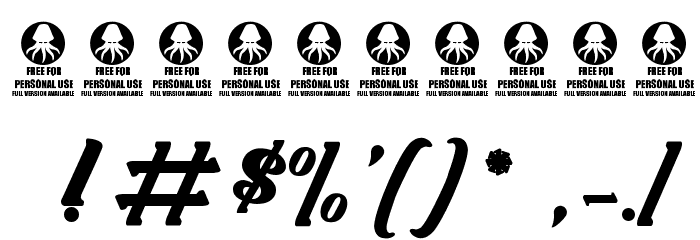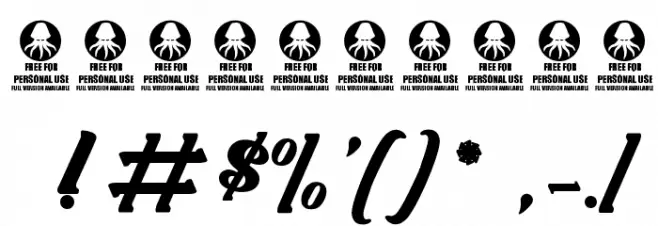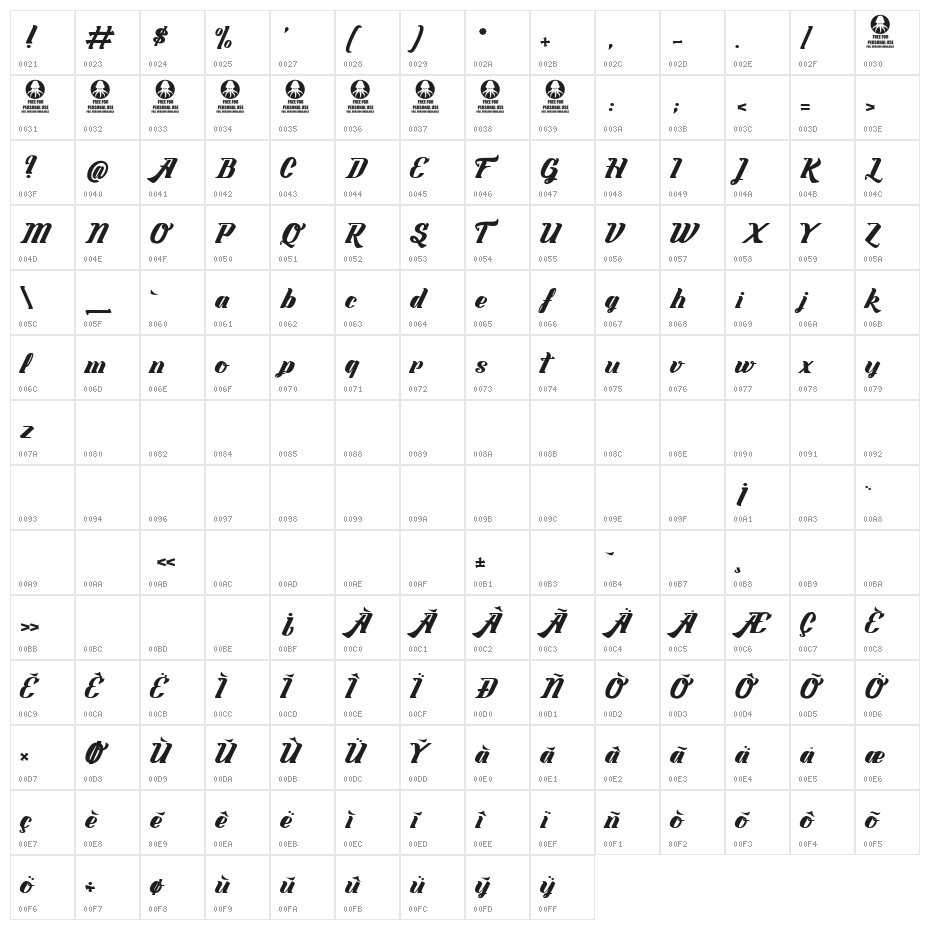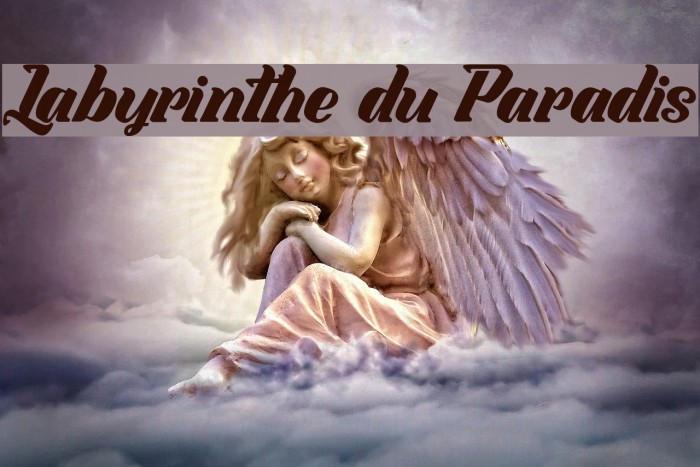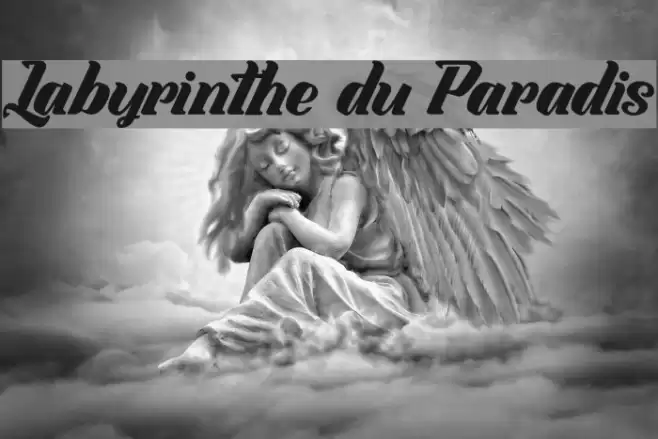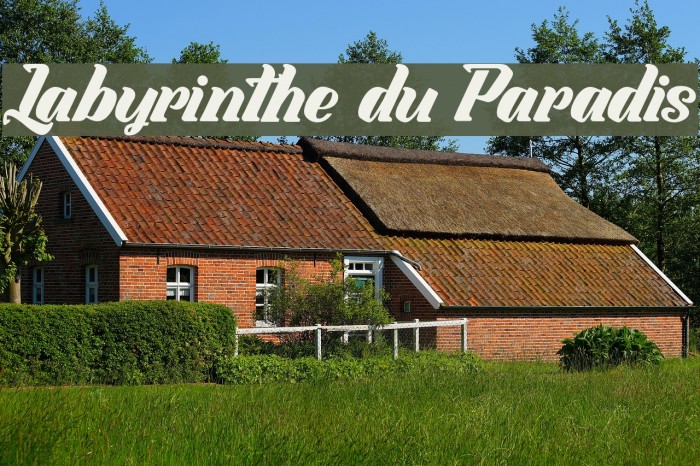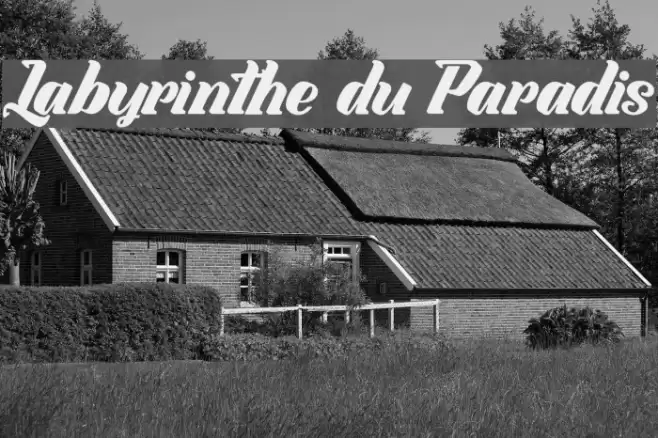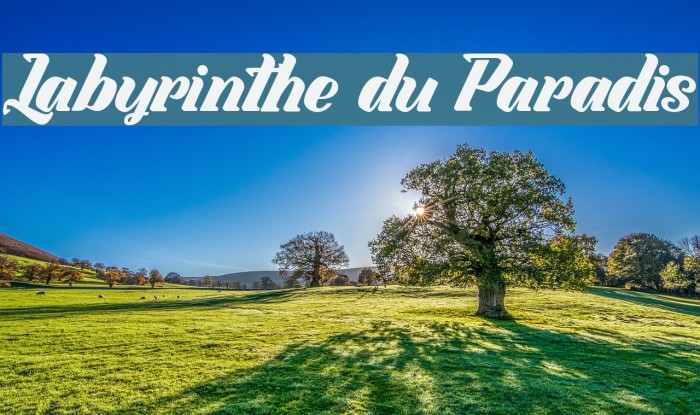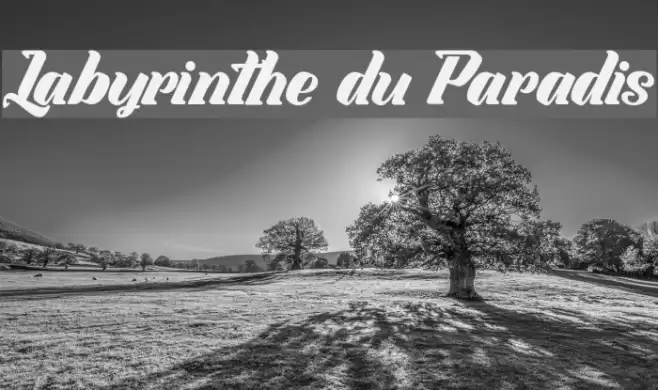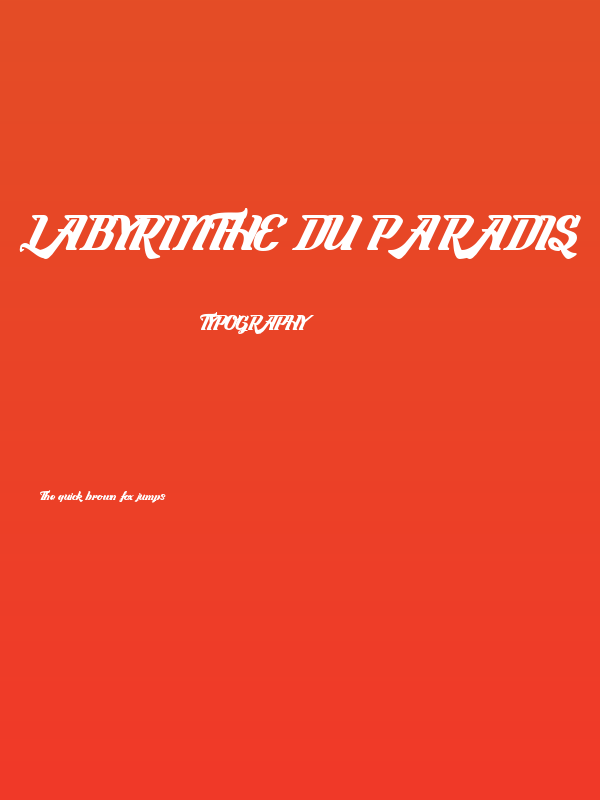
Labyrinthe du Paradis Font
Labyrinthe du Paradis Description
This font features a bold and dynamic script style with a strong presence. The characters are designed with a flowing, cursive appearance that gives a sense of movement and elegance. The uppercase letters are particularly striking, with sweeping curves and flourishes that add a decorative touch. The lowercase letters maintain a consistent style, complementing the uppercase with their own subtle flair. The numbers and special characters are crafted to match the overall aesthetic, ensuring a cohesive look across all text. This font is ideal for projects that require a touch of sophistication and artistic flair.